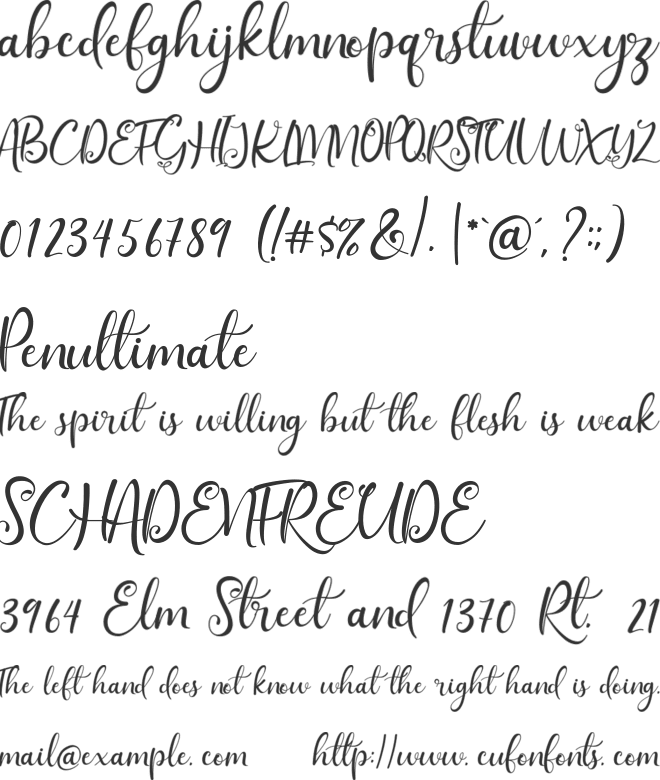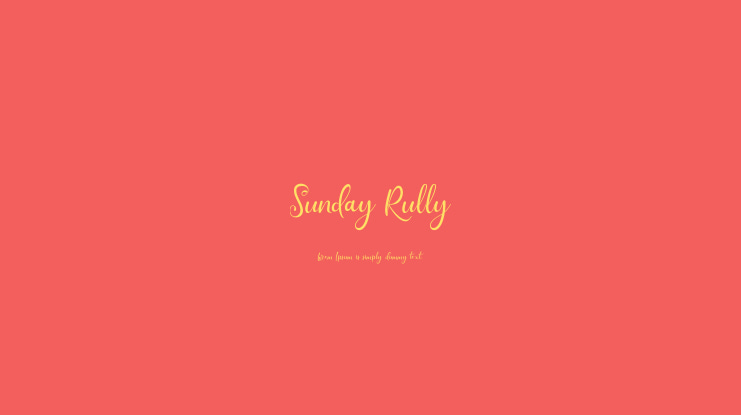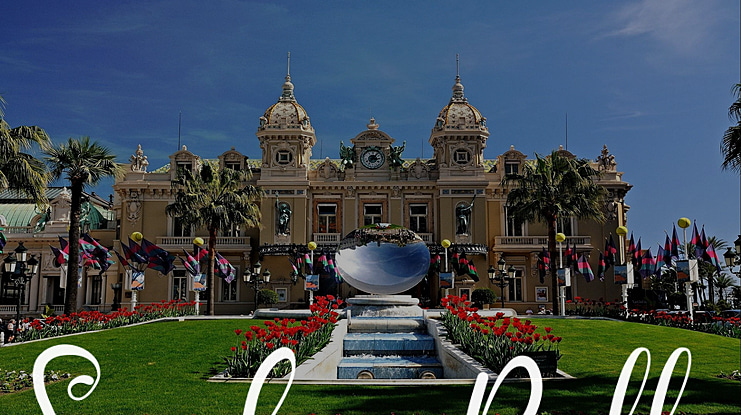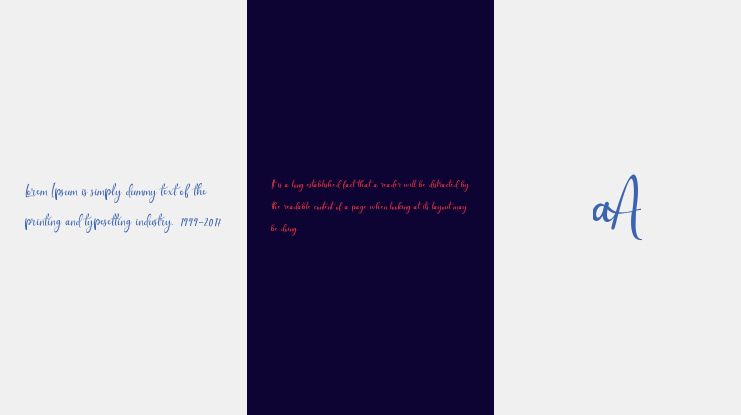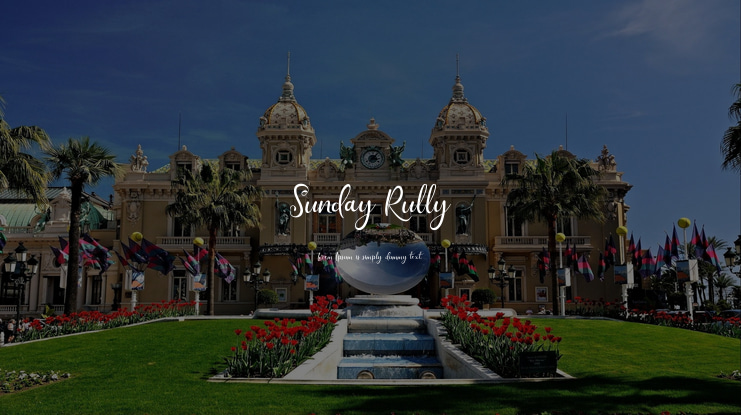
Sunday Rully Font
Introducing Sunday Rully A Modern Script Calligraphy font with a lot of stylistic alternate make this font looks natural, elegant, and perfect for any awesome projects. Sunday Rully is perfect for many different project such as logos & branding, invitation, stationery, wedding designs, social media posts, advertisements, product packaging, product designs, label, photography, watermark, special events,greeting cards, signatures, handwriting or anything
Sunday Rully was created with multilingual support and over 80 ligatures, allowing you to create a real hand-written look to your projects. This feature works best in programs that support OpenType features, such as Adobe Indesign CS, Adobe Illustrator CS, Corel draw 2019 or Adobe Photoshop CC.
You can mix and match with Opentype feature: 80 ligature More than 566 of glyphs stylistic alternates 13 stylistic sets